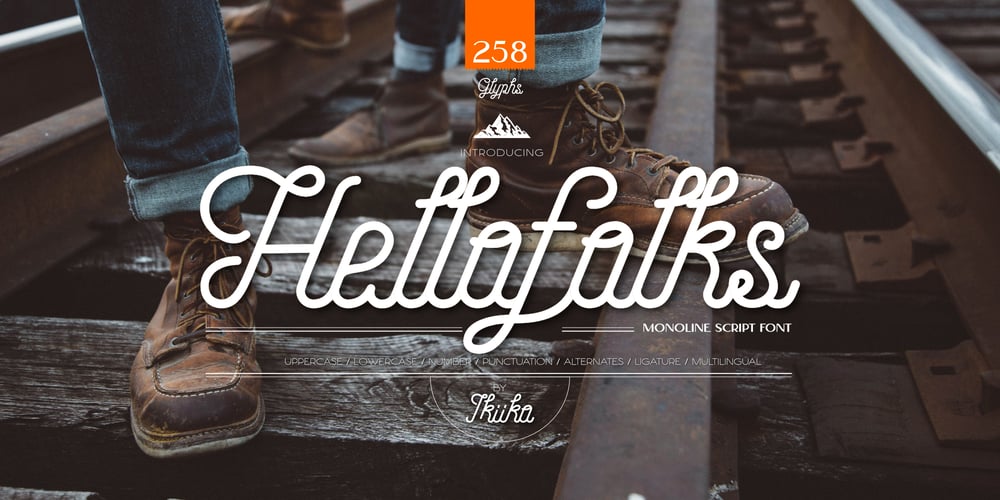
Hellofolks Monoline Script Font Font Family was designed by Andhika Pradana and published by IKIIKOWRK. Hellofolks Monoline Script Font contains 1 styles and family package options. Proudly present Hellofolks – Monoline Script Font, created by ikiiko.Hellofolks is a sweet monoline script font that simply exudes a pleasant vintage aesthetic. It is ideal for establishing a cozy and friendly ambiance with a sense of the outdoors or camping. Whether you’re creating rustic branding, campfire invites, rustic signage, Hellofolks will expertly add a dash of vintage realism to your designs.Get SPECIAL OFFER and Freebie at : www.ikiiko.comcontact : ikiikowrk@gmail.com